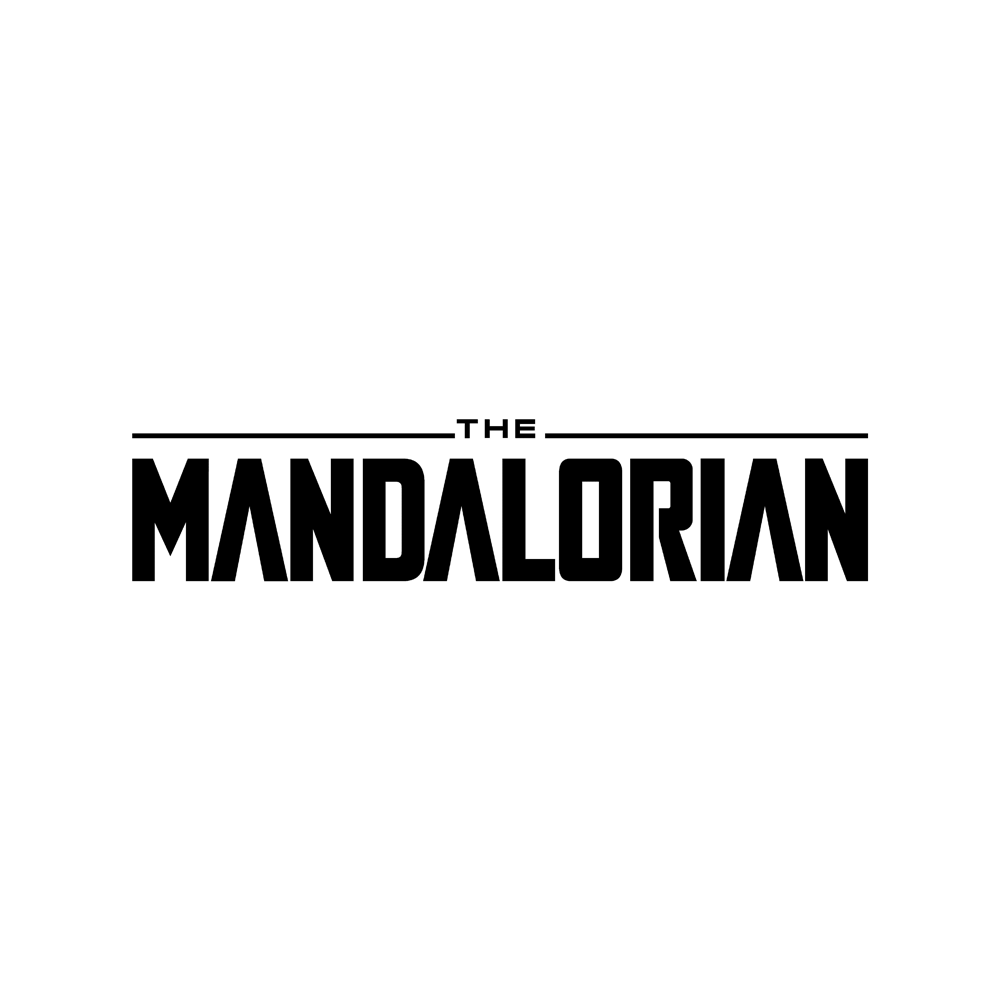
The Mandalorian Font
ActionStar Wars: The Mandalorian is an American space western television series developed by Jon Favreau for Disney+ on November 12, 2019. The story portrays a bounty hunter who goes on the run to protect "the Child" in this live-action series based five years after Return of the Jedi (1983).
It is likely that the logo for The Mandalorian was created using Font Bureau's Agency Black Condensed font as a reference or starting point. Iconian Fonts recreated the Mandalorian font with "Mandalore font" which is available free to download in the Fonts Used section. This font is free to use and licensed under donationware.